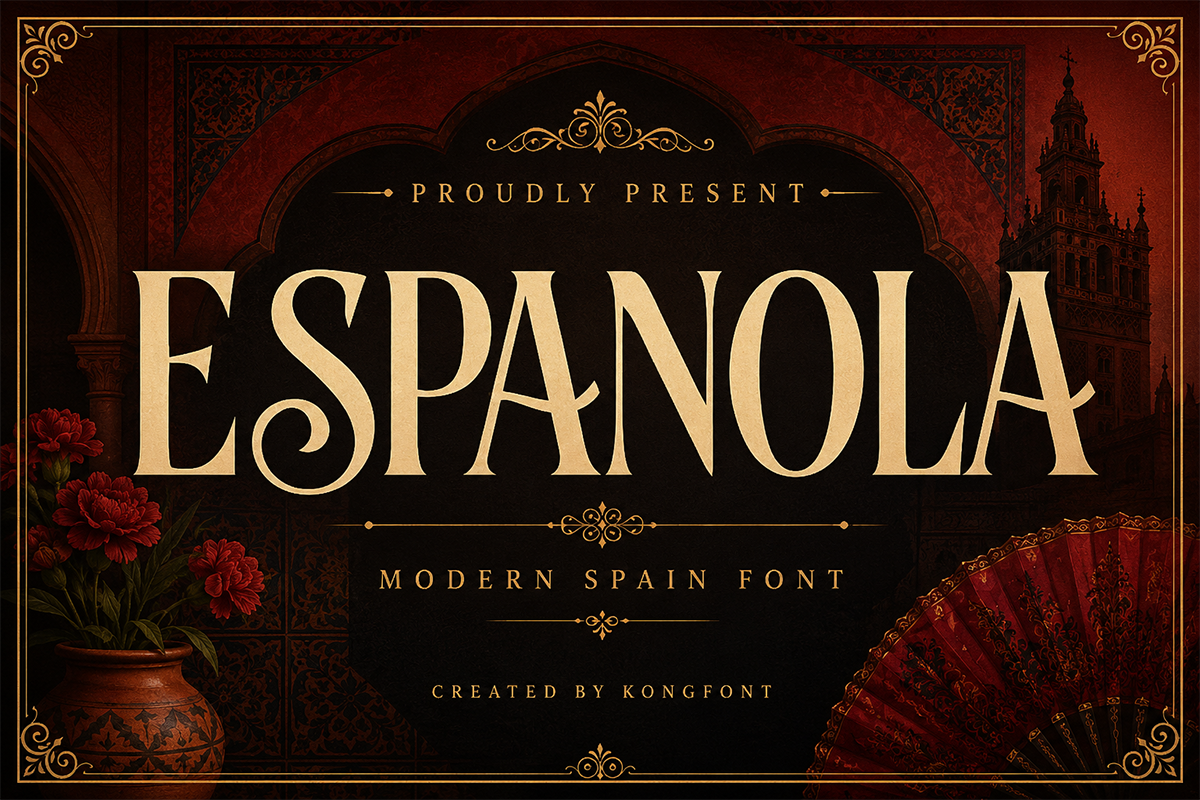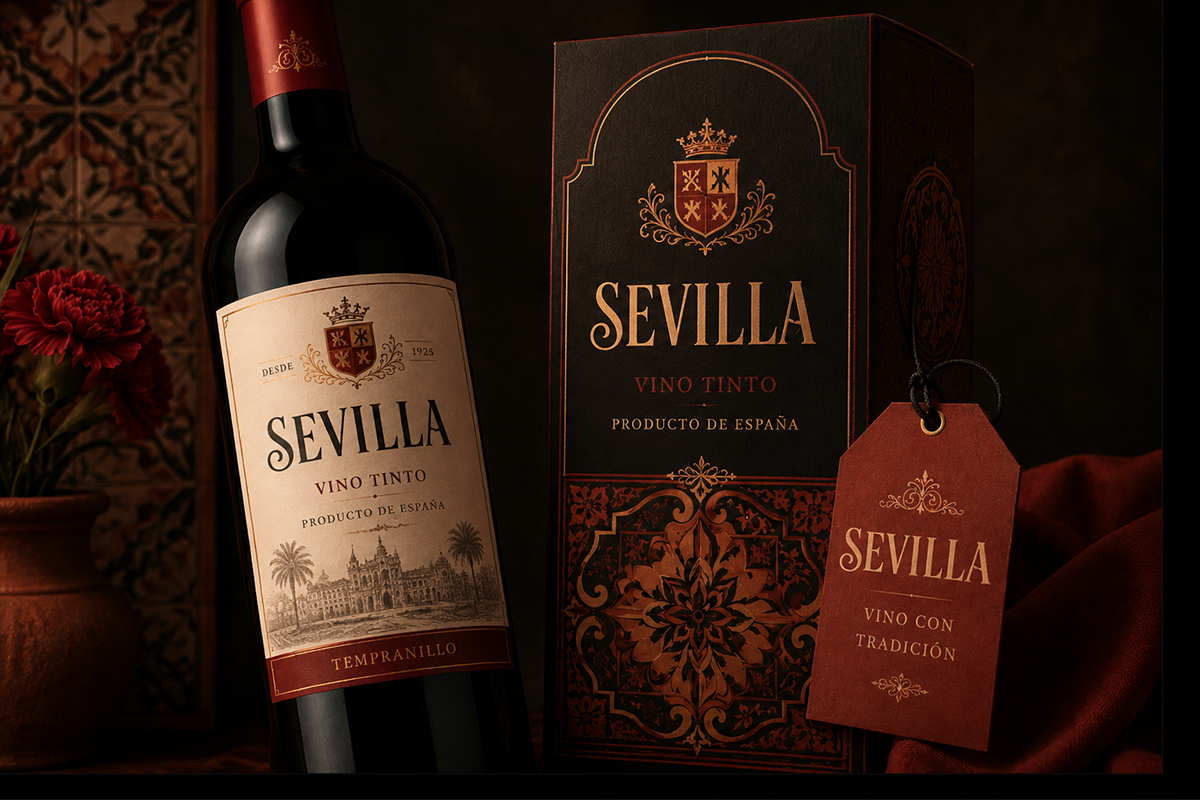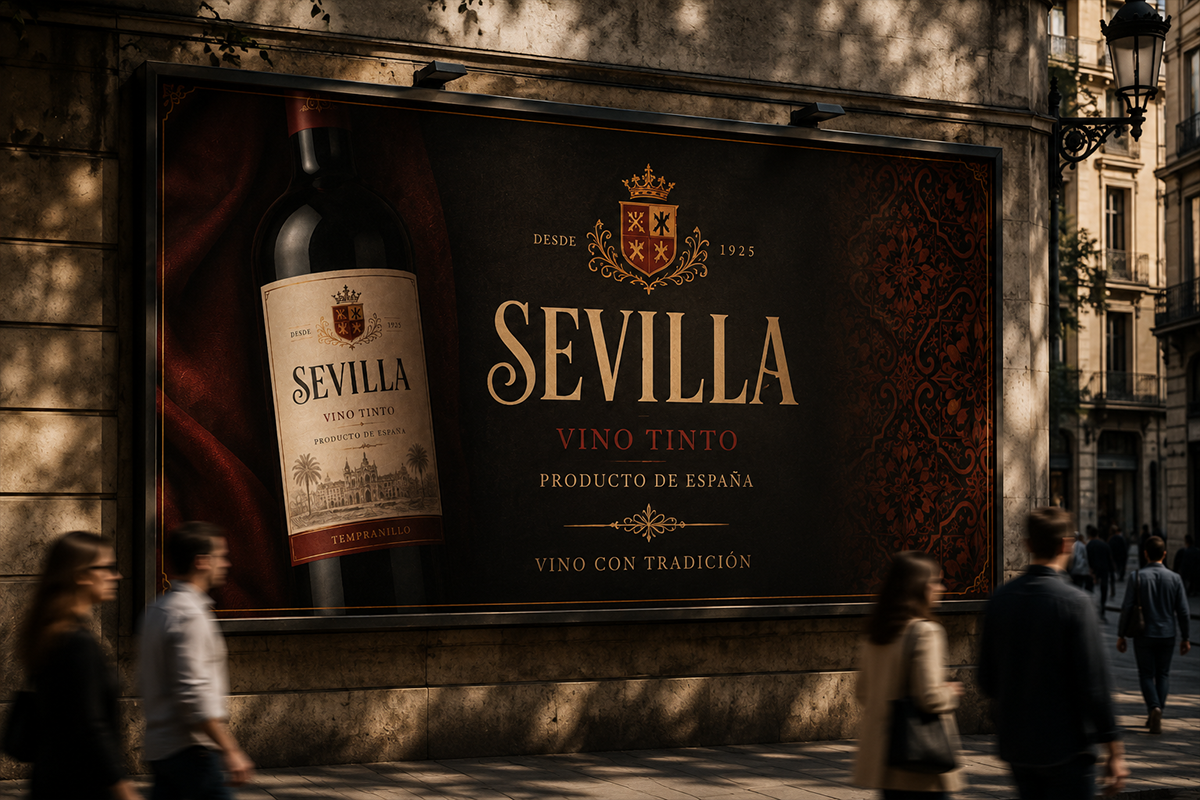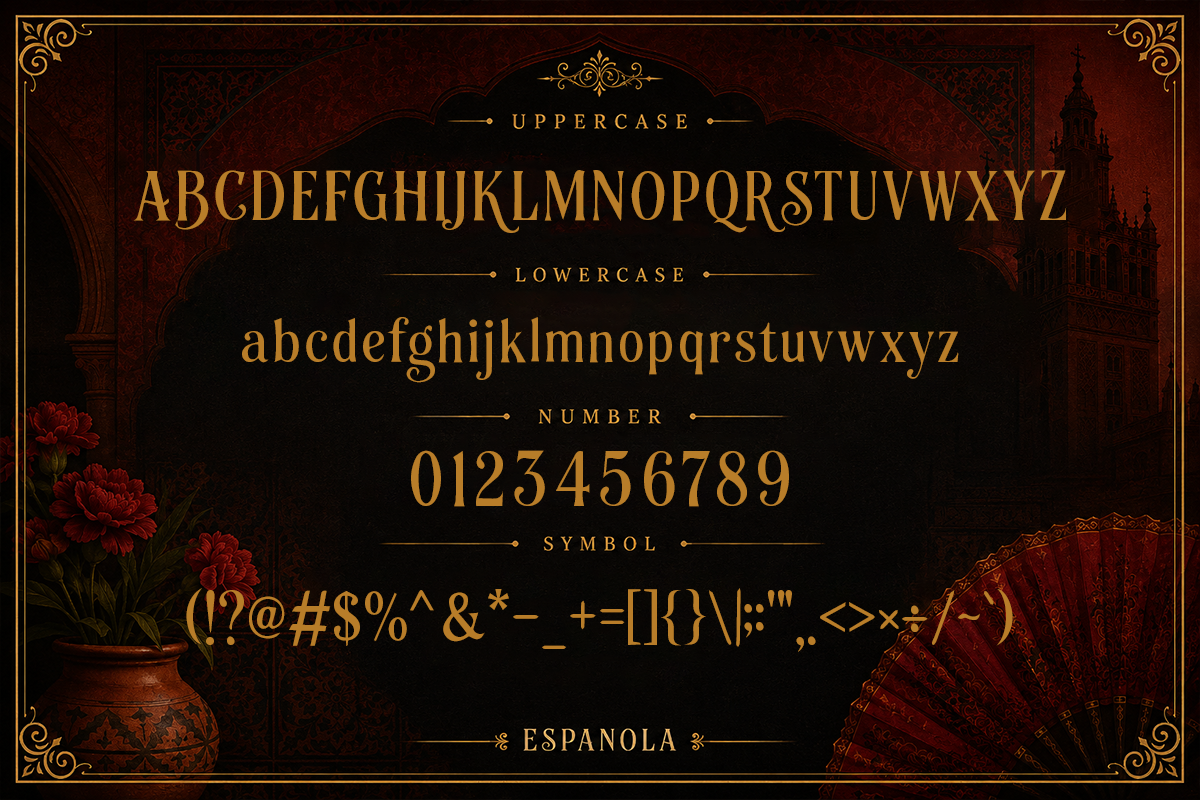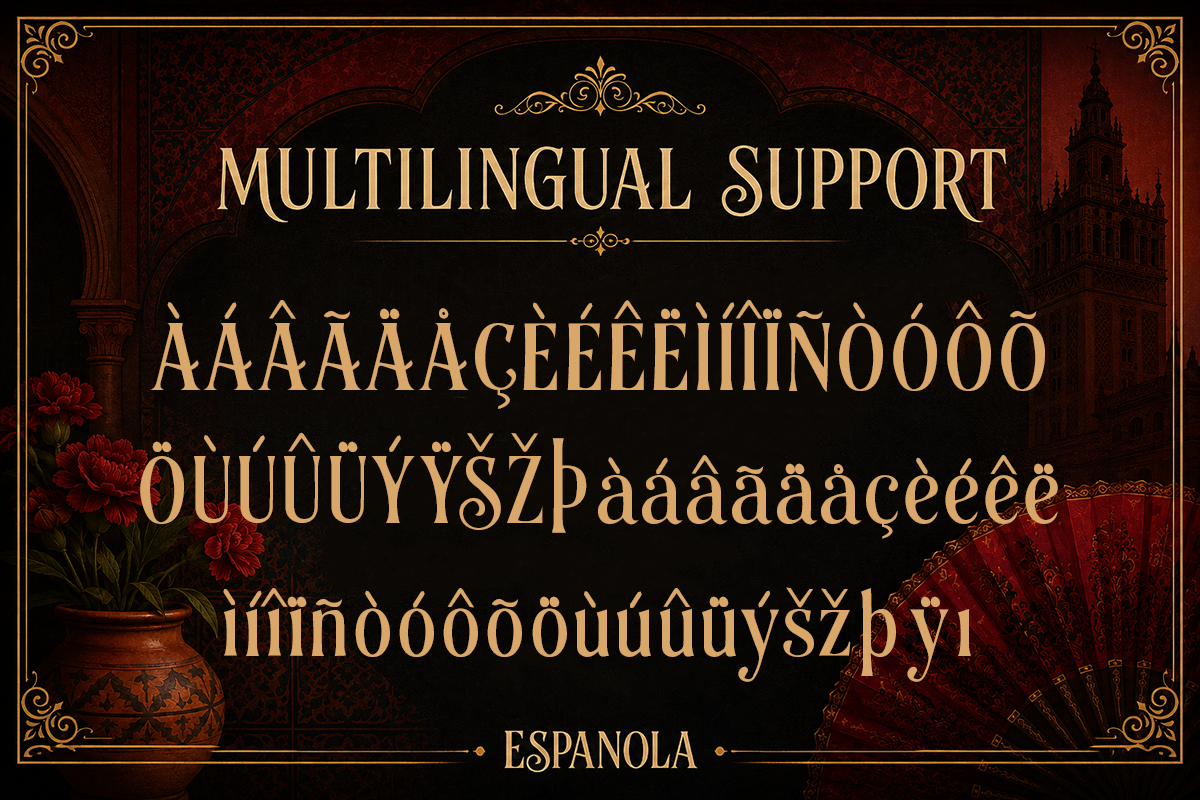
Espanola A Modern Spain Font
Espanola A Modern Spain Font is an elegant display serif font inspired by the rich visual heritage, architecture, and decorative artistry of Spain. Its tall proportions, graceful curves, and expressive serif details create a sophisticated personality that feels both classic and distinctly modern.
Designed to carry a sense of passion, refinement, and cultural elegance, Espanola combines dramatic letterforms with delicate ornamental character. The contrast between strong vertical structures and flowing curves gives the typeface a memorable presence, making it especially striking in titles, logos, and premium branding.
Espanola is perfect for luxury branding, restaurant identities, wine and food packaging, fashion editorials, travel posters, hotel branding, invitations, book covers, cultural events, beauty products, and sophisticated social media designs.
Inspired by Spanish architecture, traditional ornamentation, flamenco elegance, historic plazas, and the warm atmosphere of Mediterranean evenings, Espanola brings passion, heritage, and timeless sophistication to every word.
Perfect for:
Luxury Branding • Logos • Editorial • Fashion • Magazines • Packaging • Invitations • Hospitality • Beauty • Premium Products